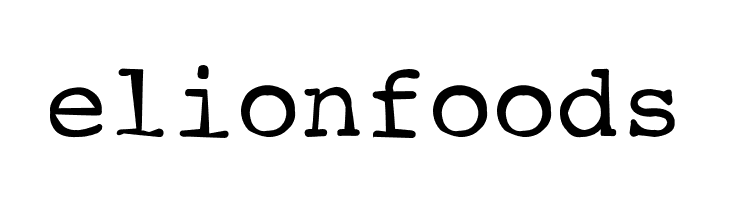
A vintage, typewriter-inspired font with monospaced, slightly irregular strokes.
A bold, geometric font with a modern and industrial style.
A bold, playful font with thick, rounded characters and a friendly appearance.
A playful, hand-drawn font with irregular, whimsical characters.
A silhouette-based decorative font with characters formed by human and animal figures.
A playful, hand-drawn font with irregular strokes and a lively appearance.
A bold, playful font with a wiggly, shadowed design and hand-drawn style.
A bold, playful font with rounded, hand-drawn characters.
A playful and bold font with exaggerated curves and dynamic strokes.